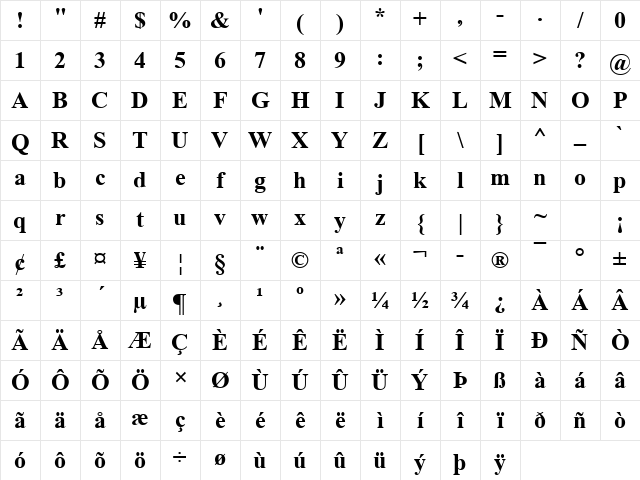
Complete Woman Of The World 18 Bold glyph index. Displaying only characters natively supported by Woman Of The World 18 Bold font.
Woman Of The World 18 is a composed and adaptable typeface that performs quietly and consistently across a wide range of design contexts. Its bold stroke weight gives it real presence on the page.